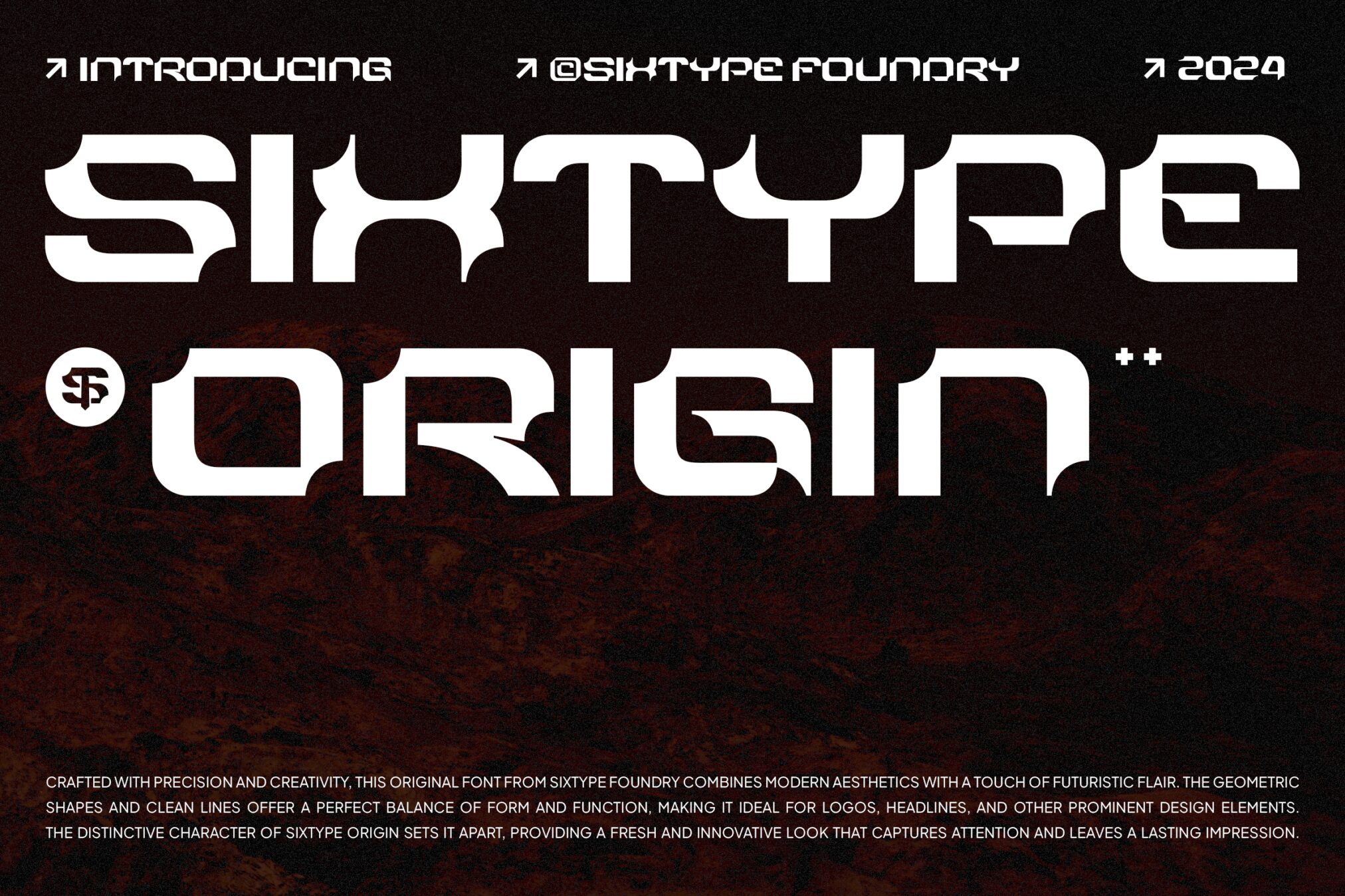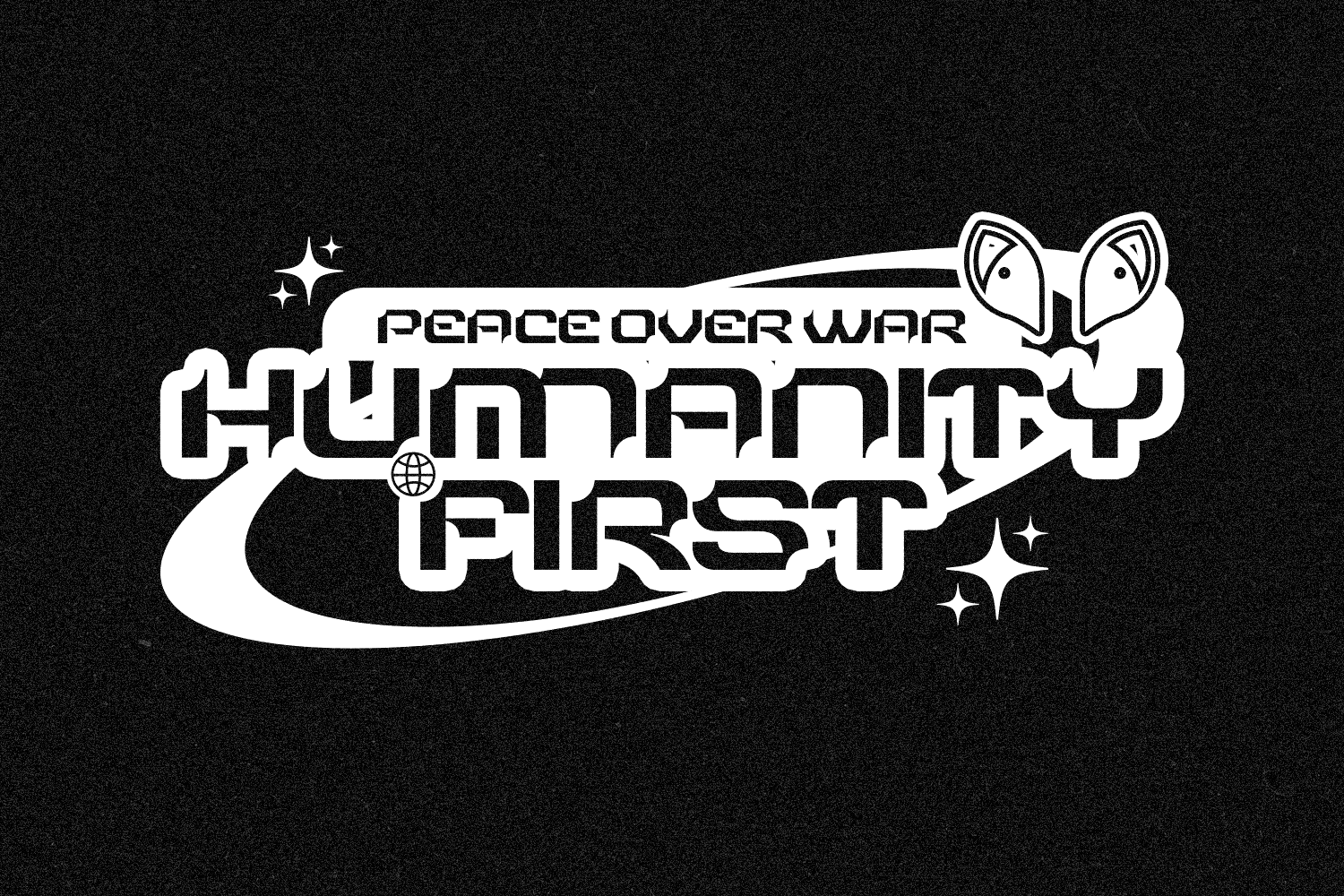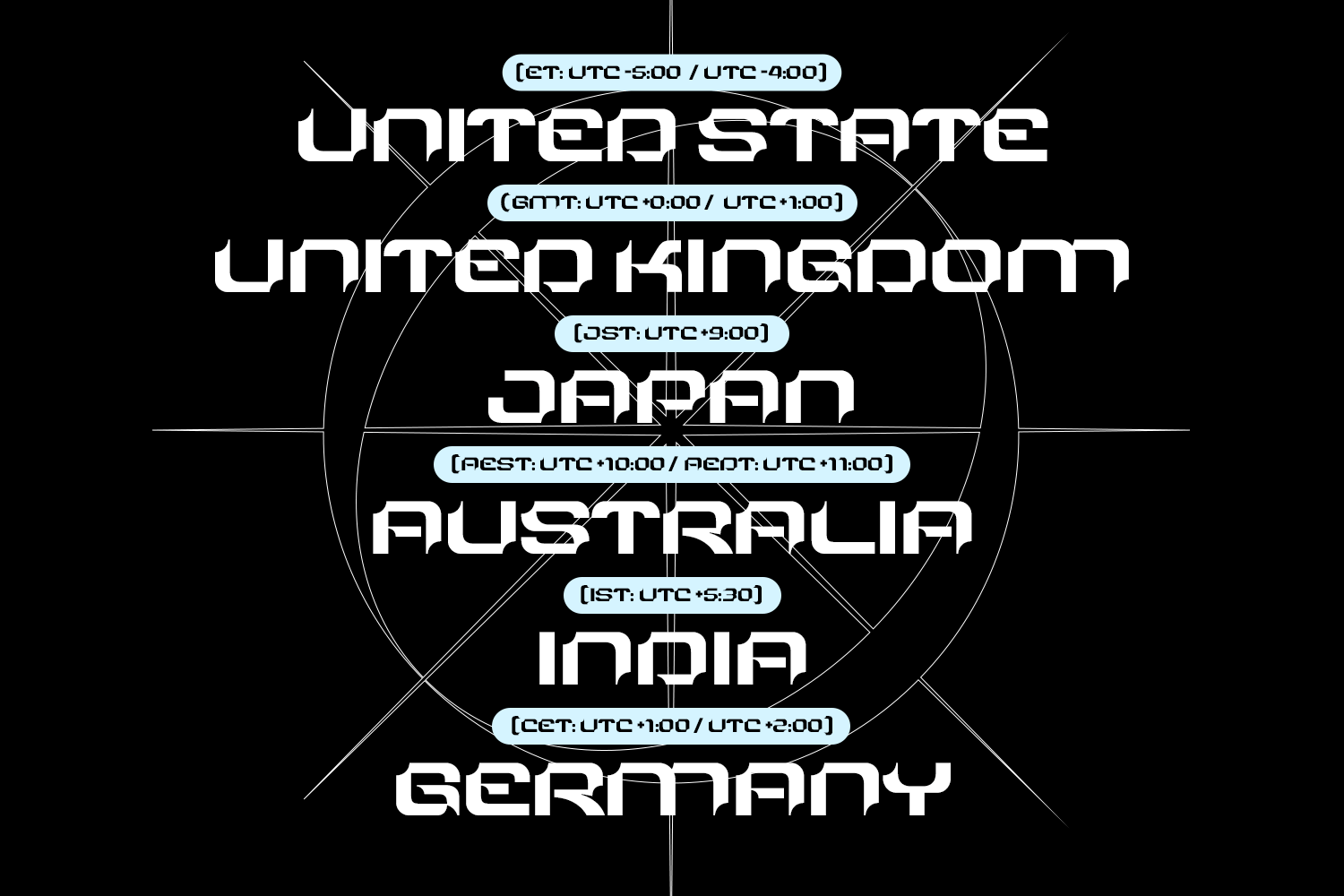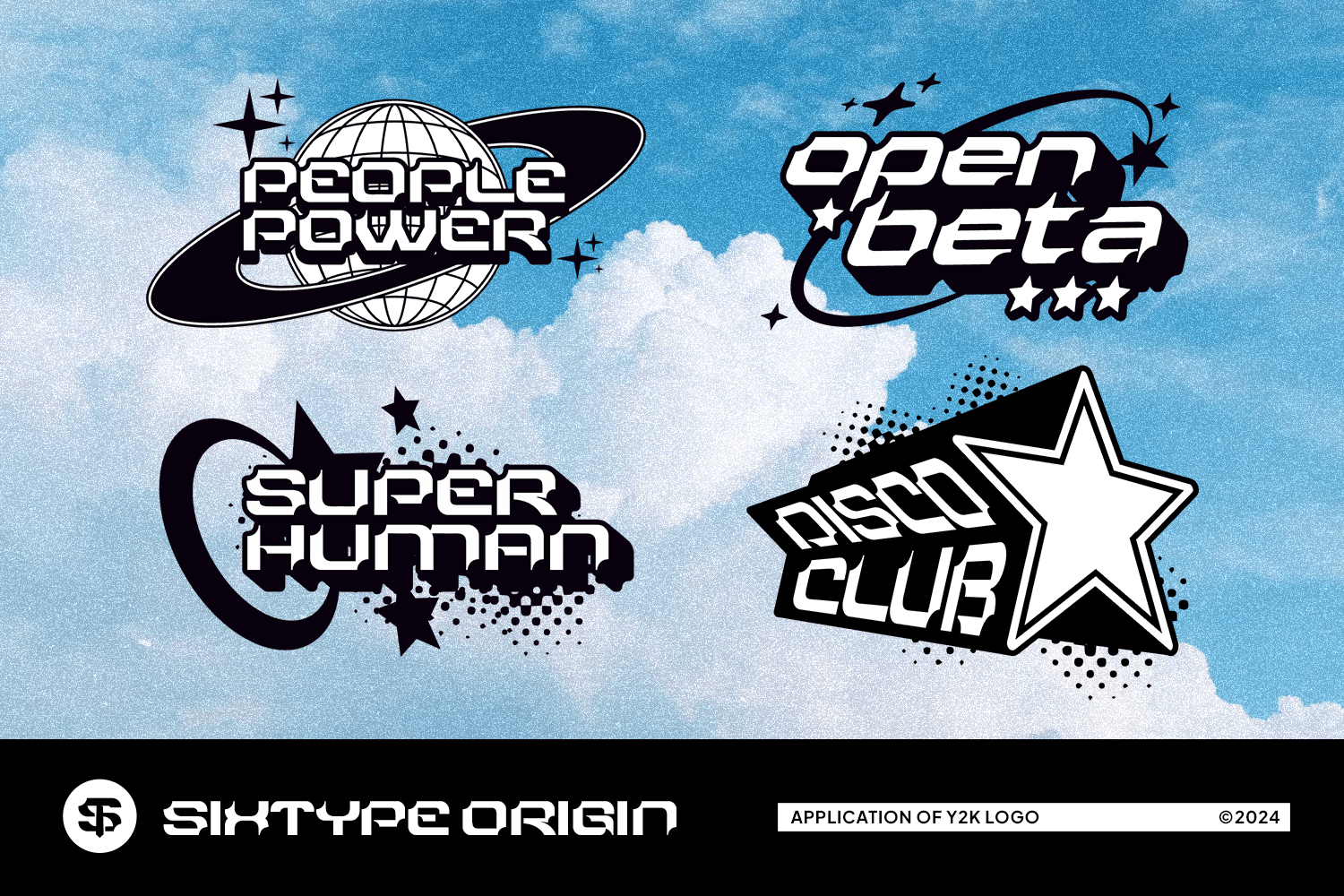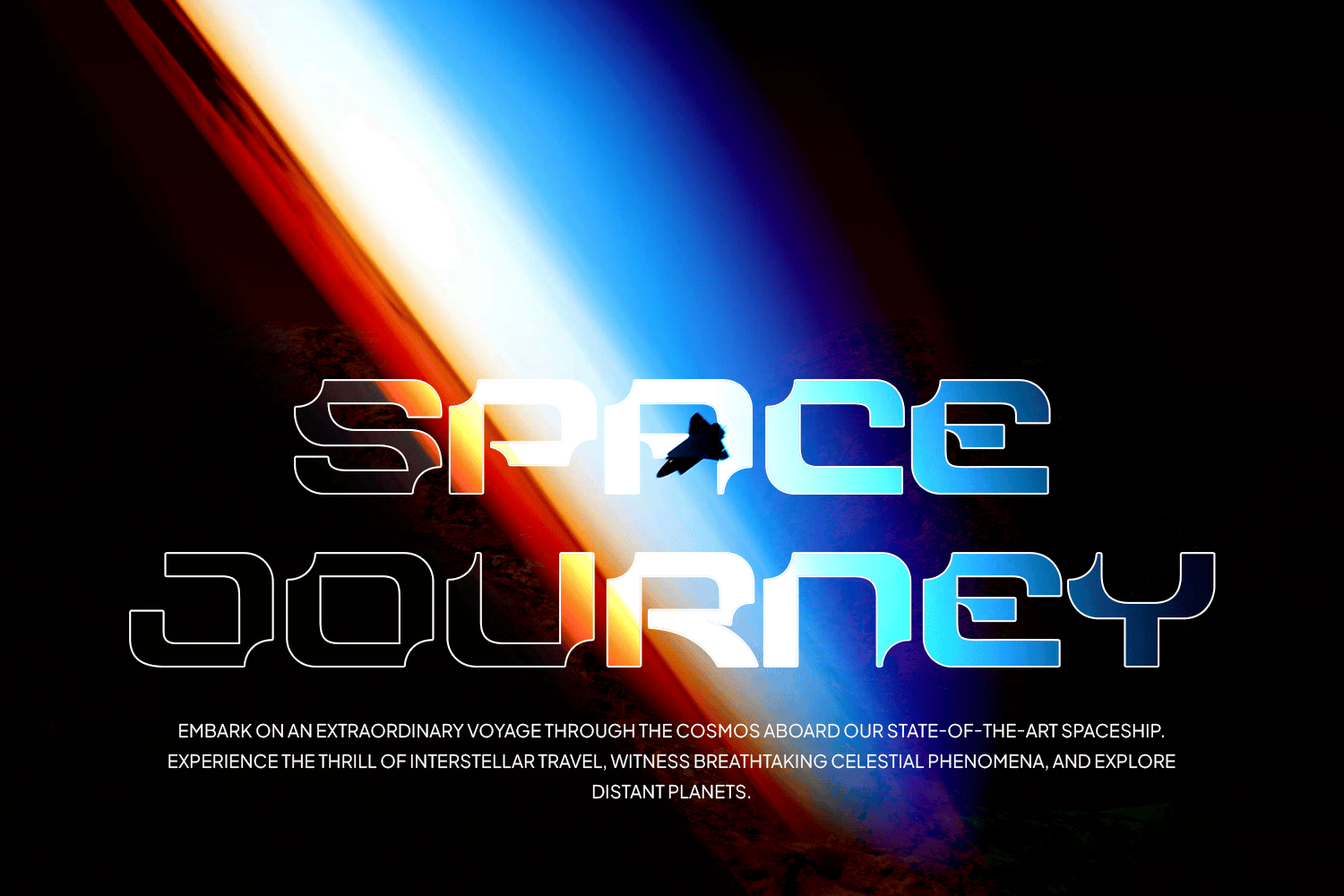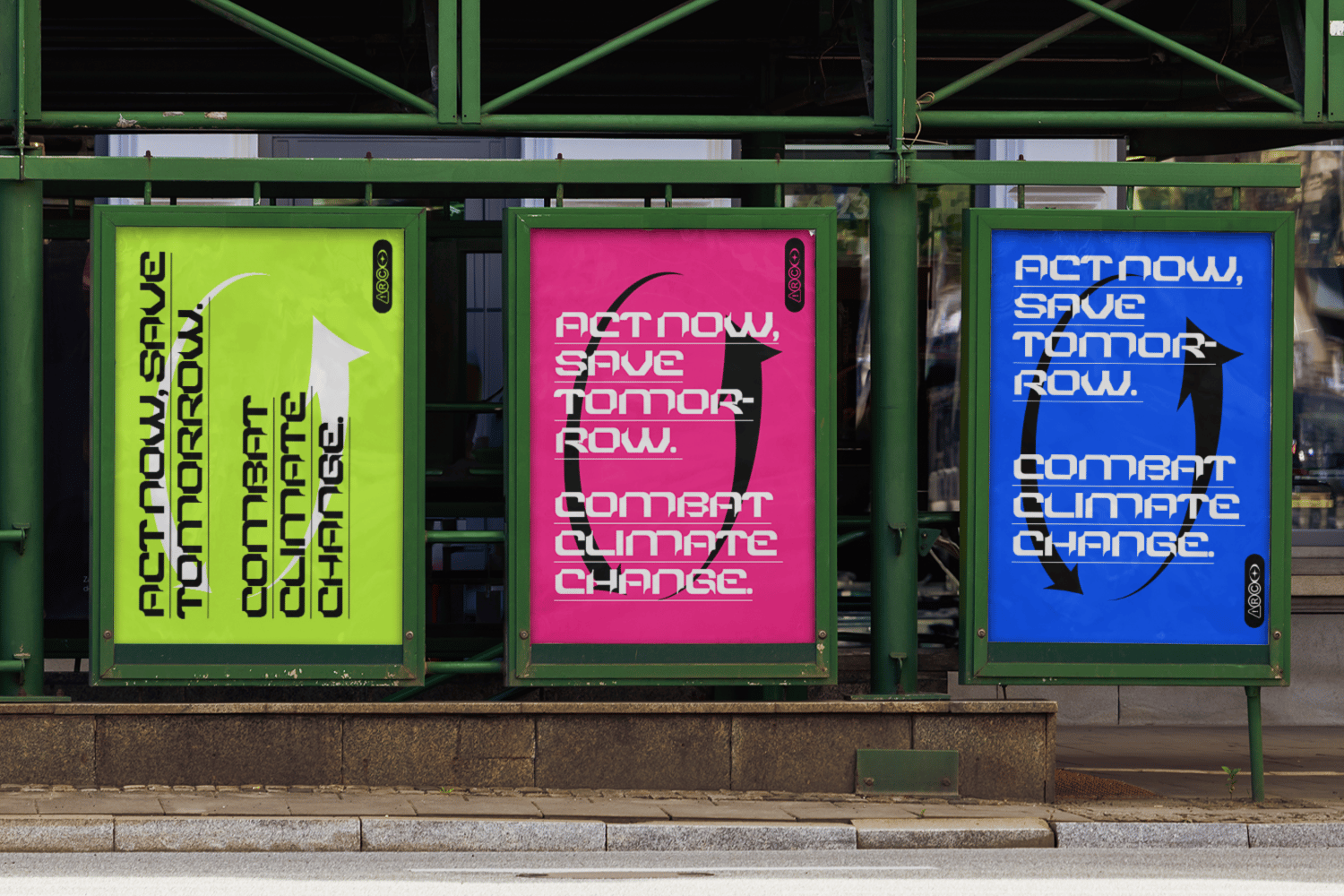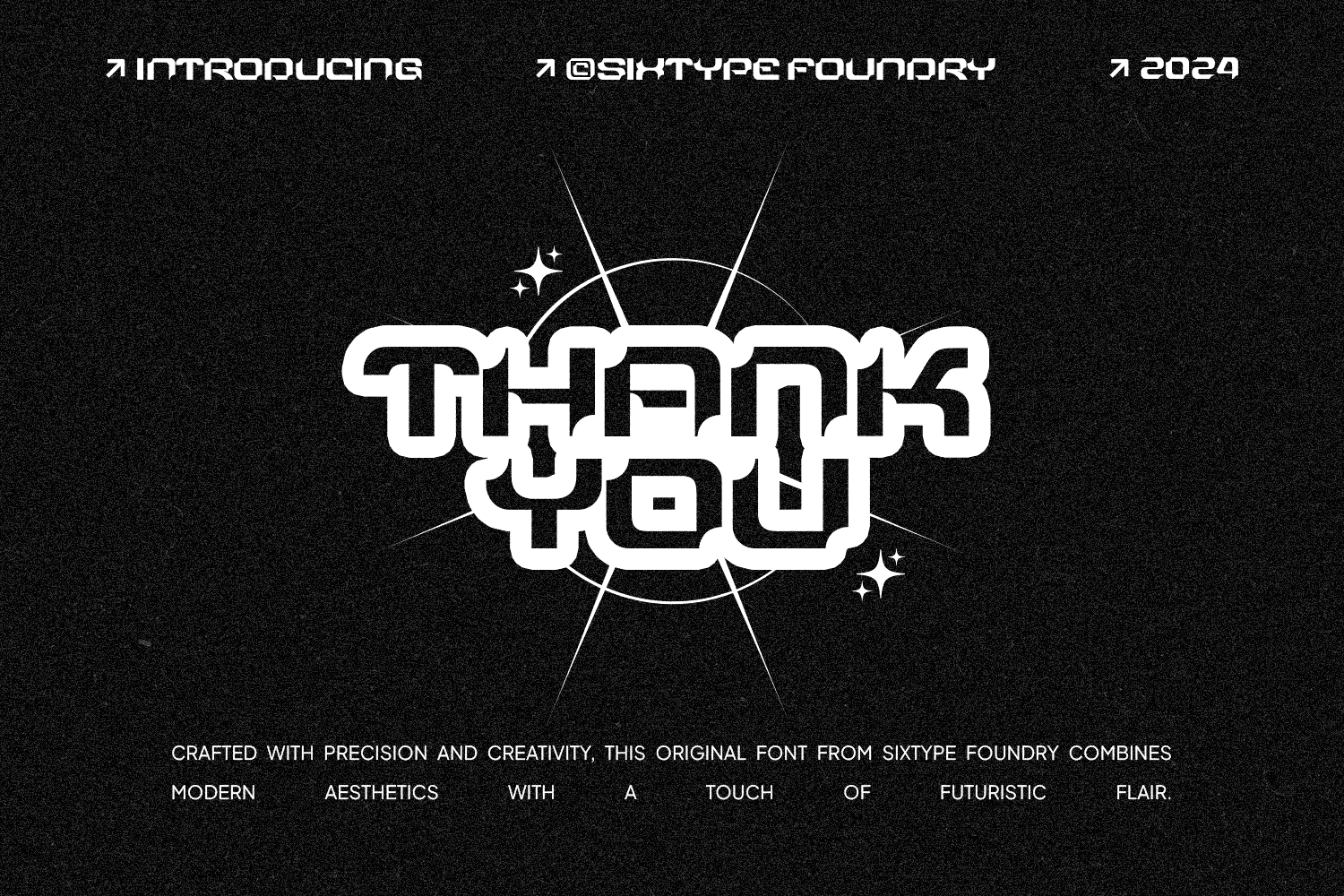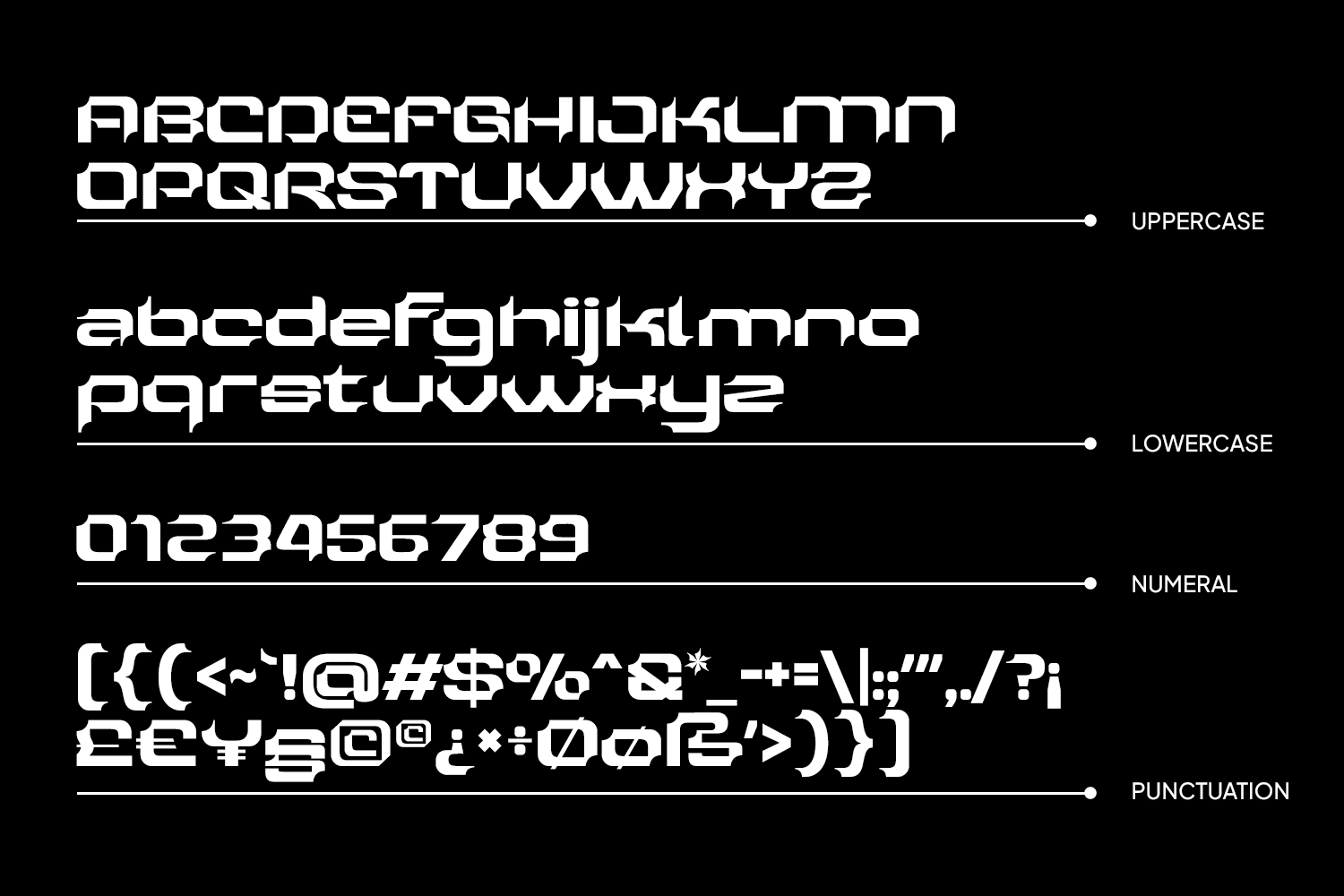
Sixtype Origin Font Z53U7C6
Crafted with precision and creativity, this original font from Sixtype Foundry combines modern aesthetics with a touch of futuristic flair. The geometric shapes and clean lines offer a perfect balance of form and function, making it ideal for logos, headlines, and other prominent design elements. The distinctive character of Sixtype Origin sets it apart, providing a fresh and innovative look that captures attention and leaves a lasting impression.
* Unique letterforms